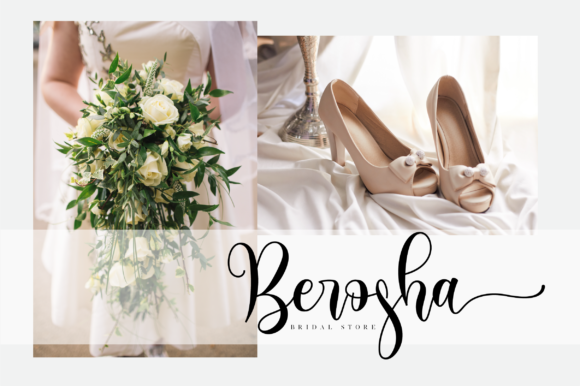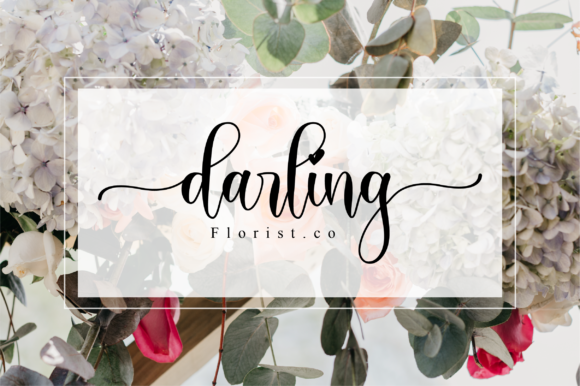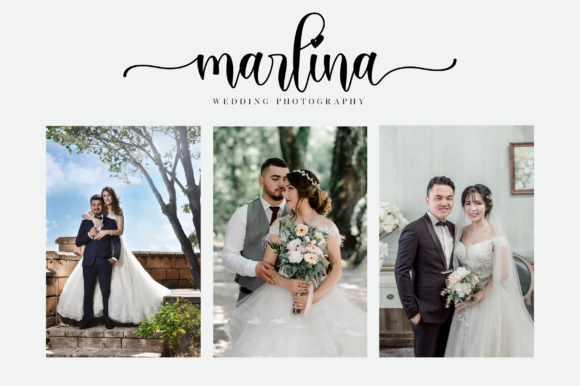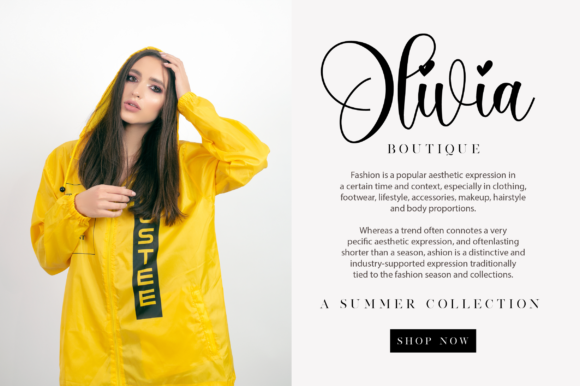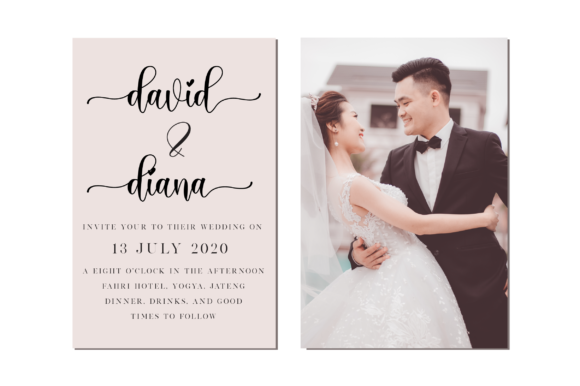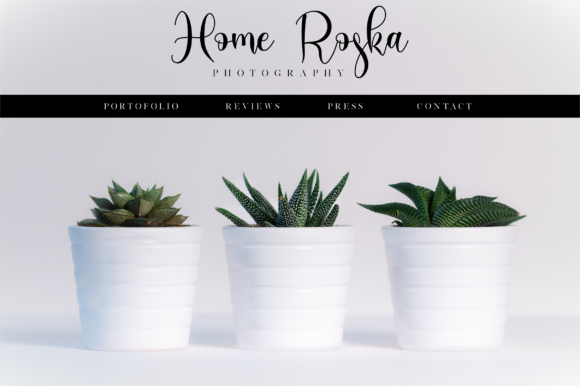
Introduction to Perisha Font
Perisha is a beautiful script font that has a classy, elegant, and modern look.
It is perfectly suited for a wide variety of projects .
Key Features of Perisha Font
Why Choose Perisha Font?
Perisha Font offers exceptional quality and versatility, making it a valuable addition to your design toolkit. Whether you’re creating for personal projects or commercial use, Perisha Font delivers professional results.